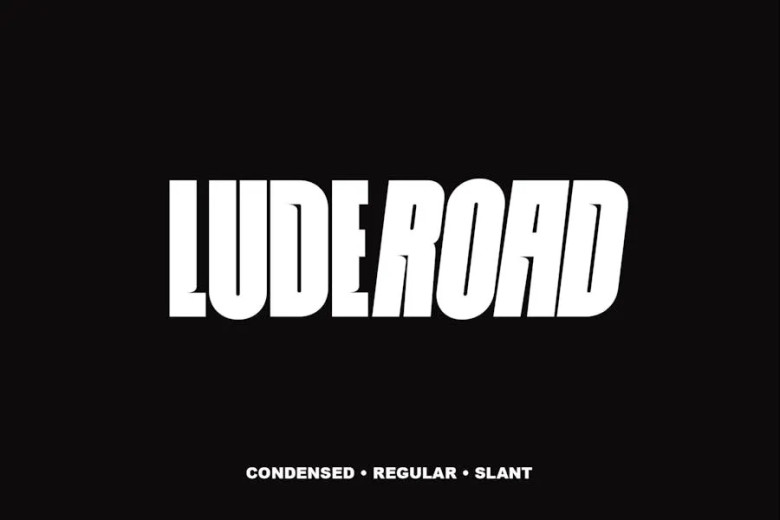
Luderoad Font
Luderoad is a sans serif font, Luderoad Font is perfect for many projects: book, magazines, logo, branding, photography, quotes, blog header, poster, ads, etc. The free version provides all uppercase and lowercase letters and a few special characters too.
Luderoad Sans Serif Font